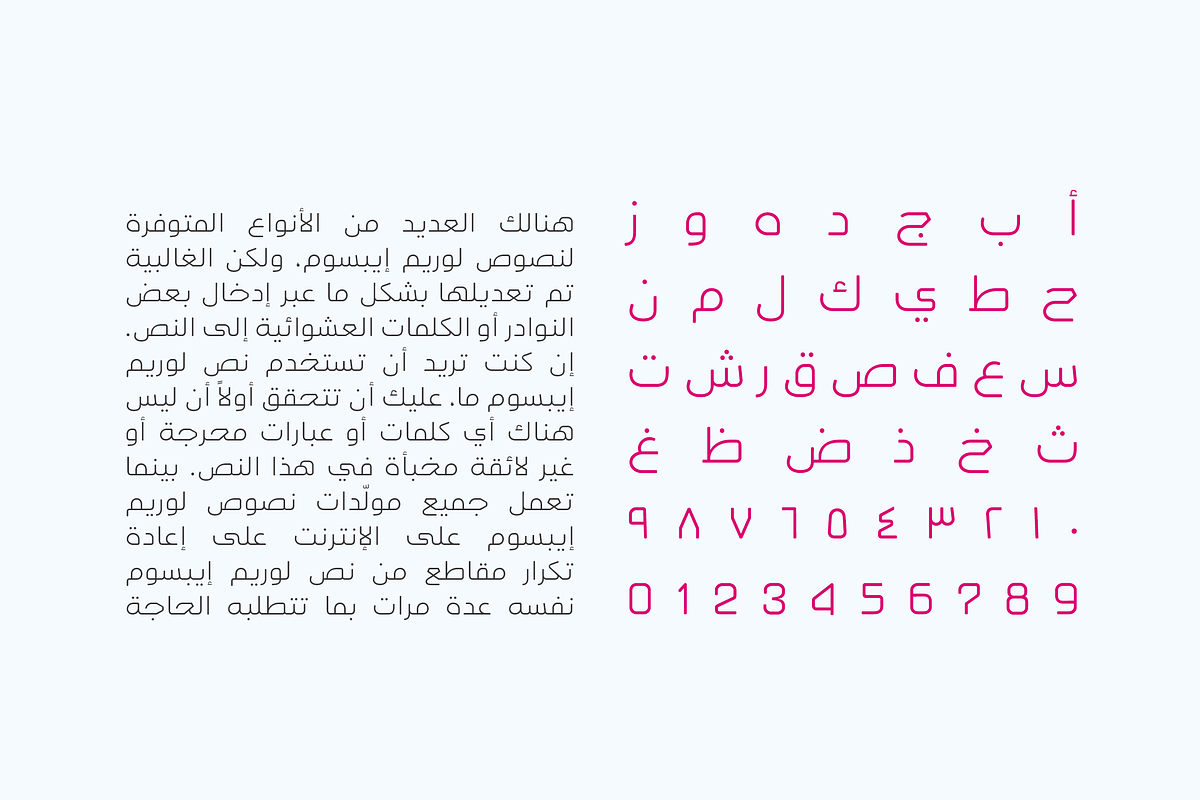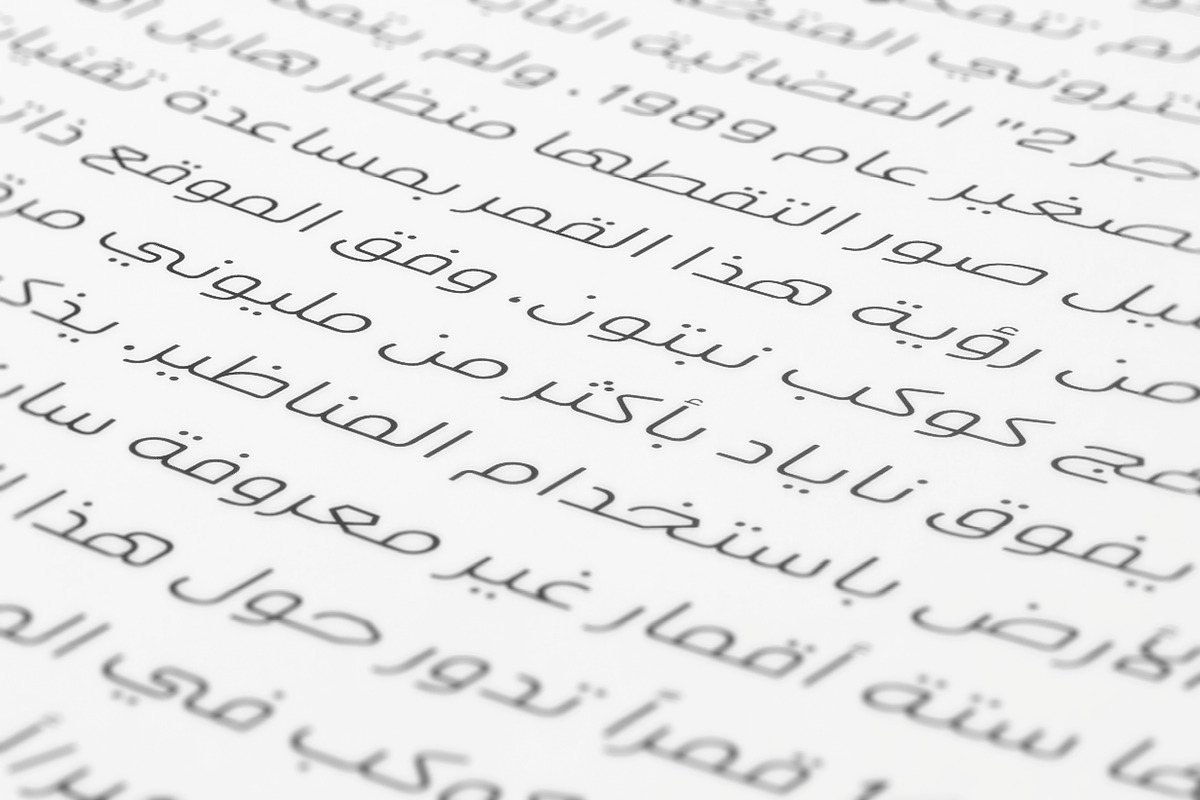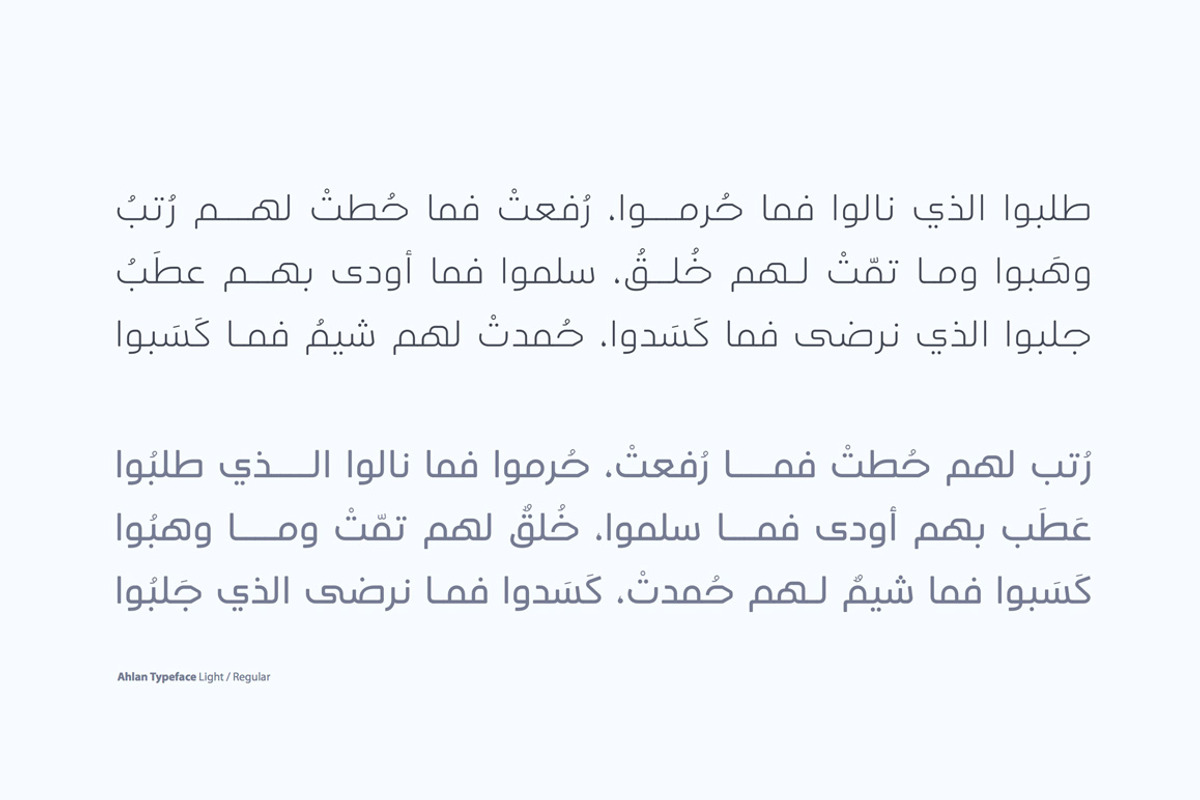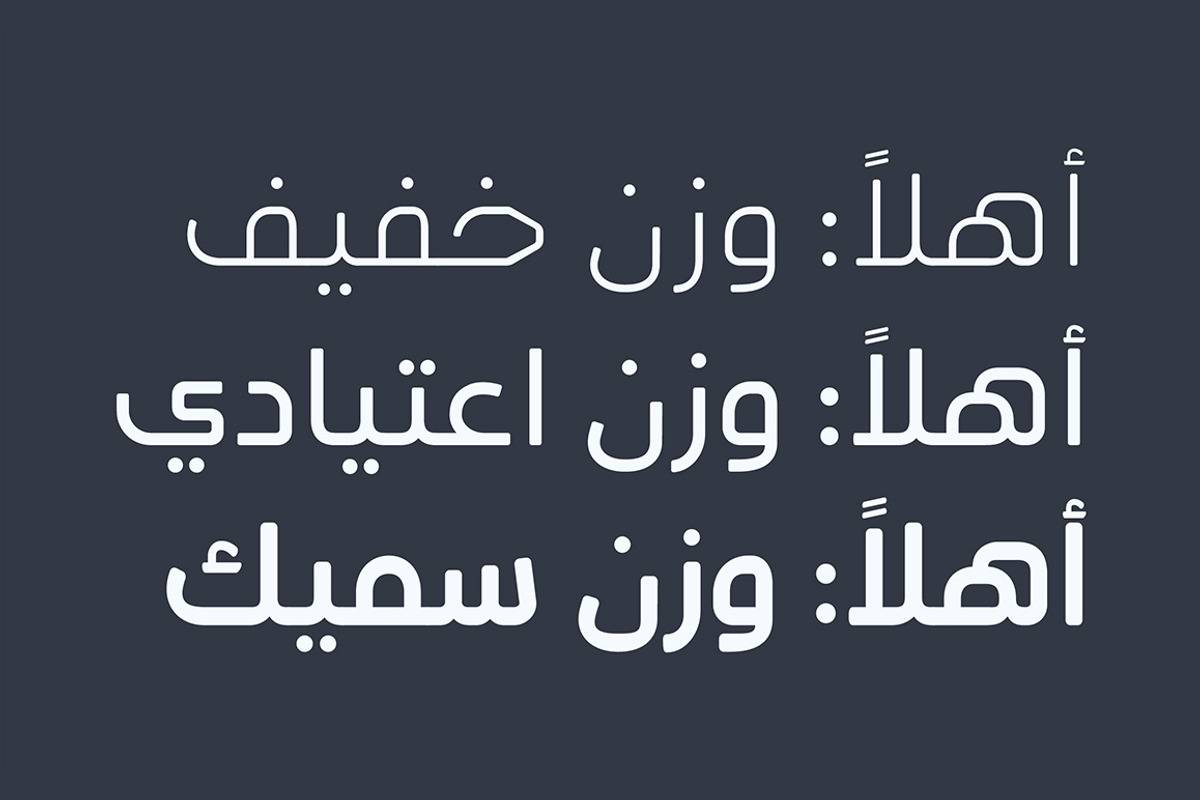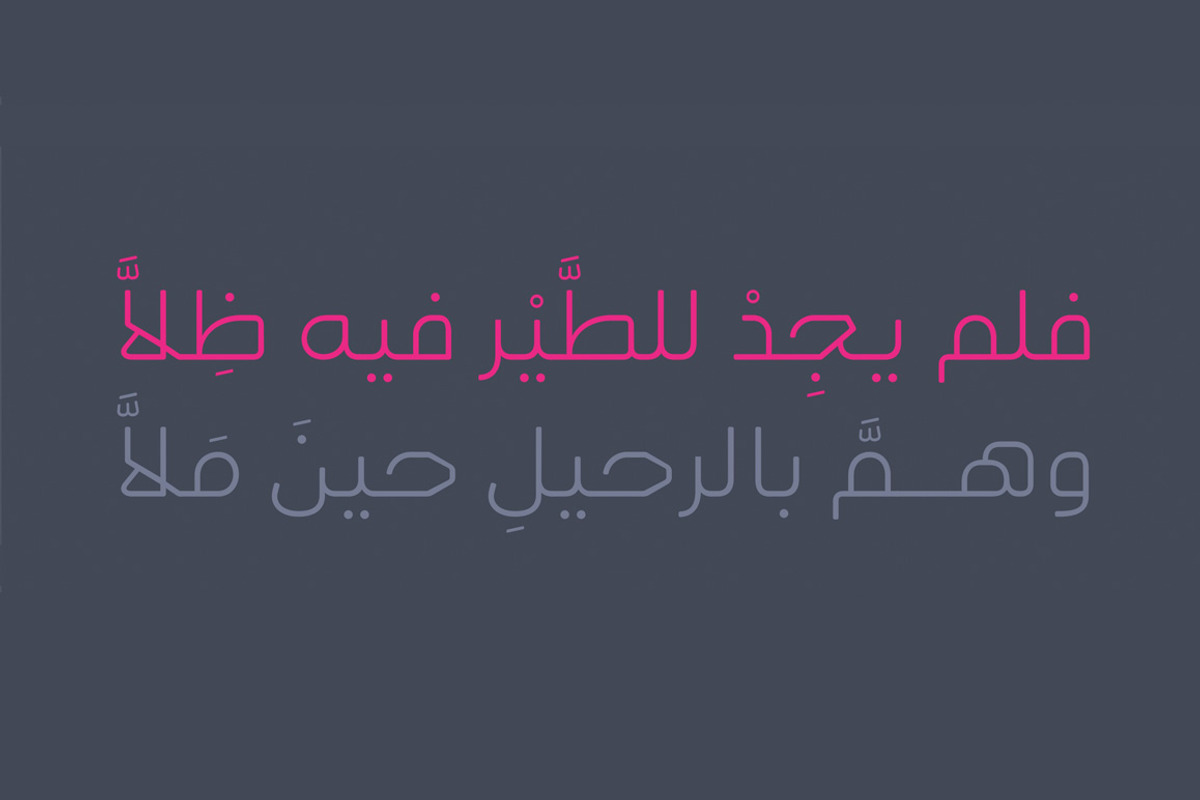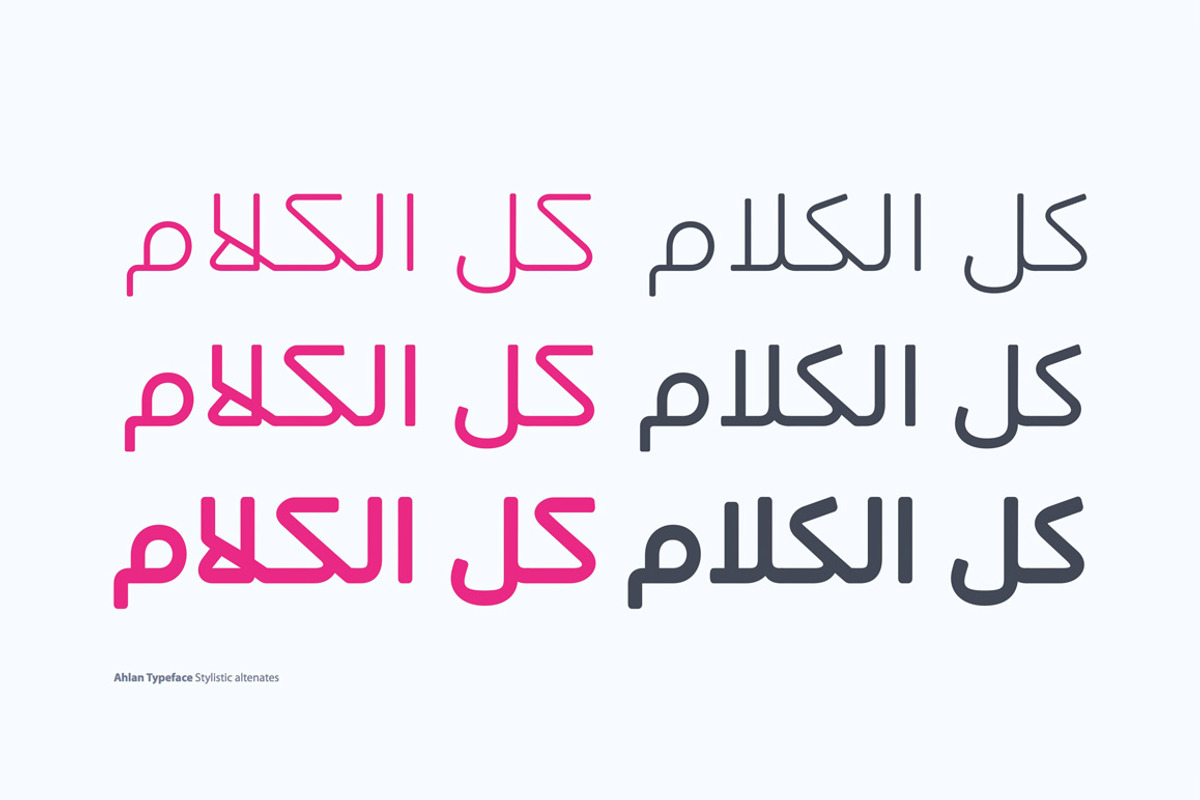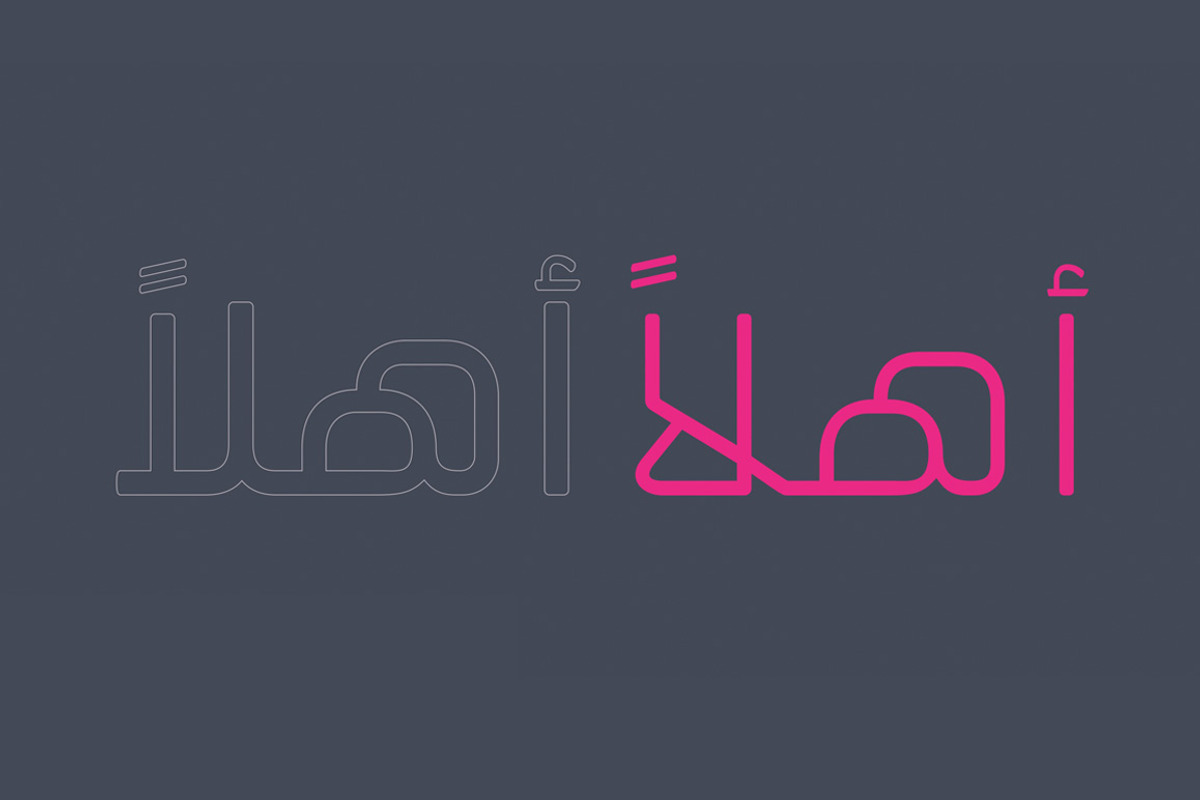
Ahlan - Arabic Font | خط أهلا
Ahlan - Arabic Font | خط أهلا by Mostafa El Abasiry is a font selected for branding, posters, packaging, typography.
- Ahlan Light
- Ahlan Regular
- Ahlan Bold
Why Ahlan - Arabic Font | خط أهلا is worth a look
Ahlan - Arabic Font | خط أهلا by Mostafa El Abasiry fits naturally into Branding, posters, packaging, typography.